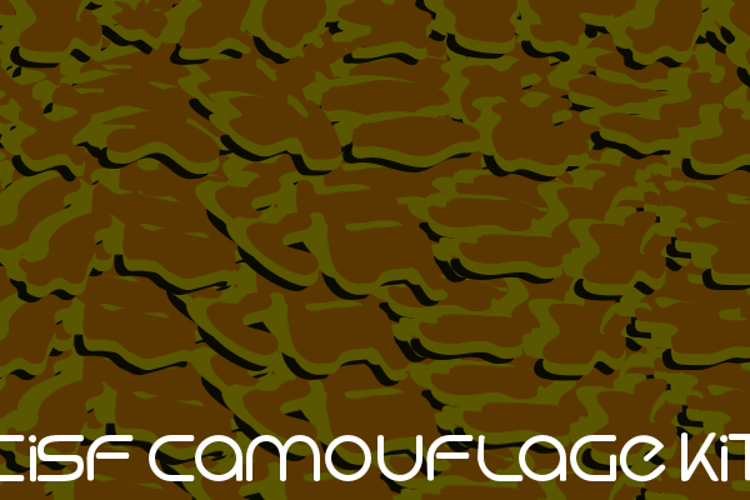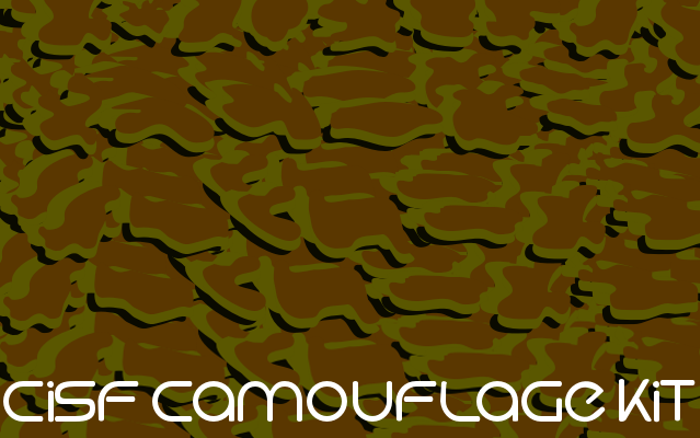
CISF Camouflage Kit Font
Mdz Style
OuLn Style
Ste Style
This font is a Camouflage pattern design kit, I designed this as a side project due to being bored and I considered it useful enough to share.
CiSf Camouflage Kit Modernized is a jagged, modern style camouflage weight, and Stencil is a smoothed out, stencil style weight.